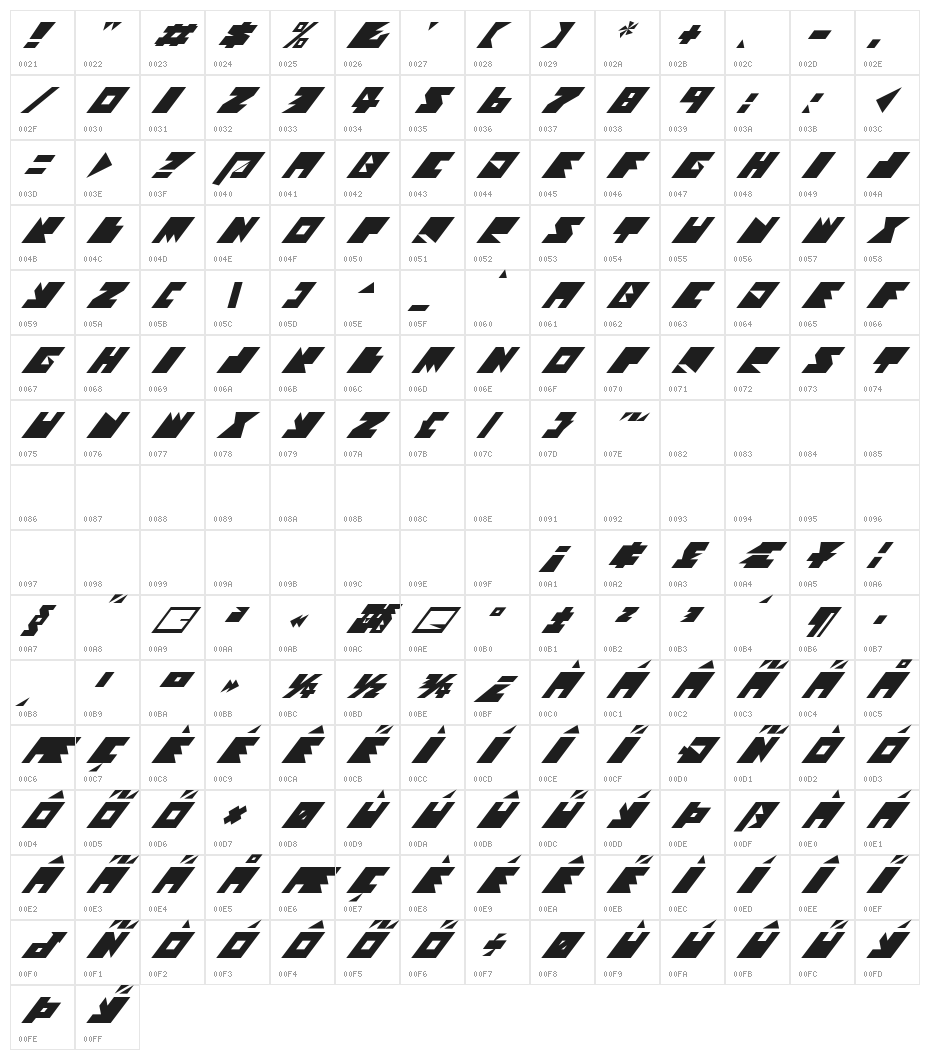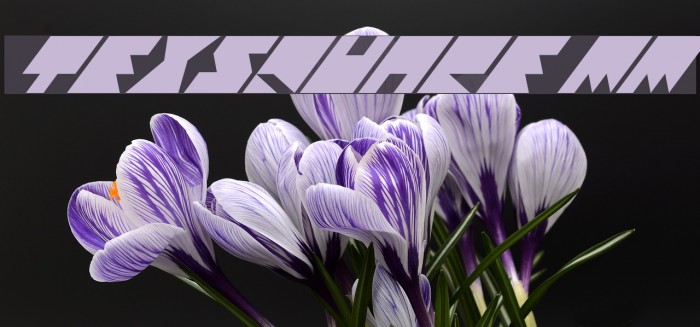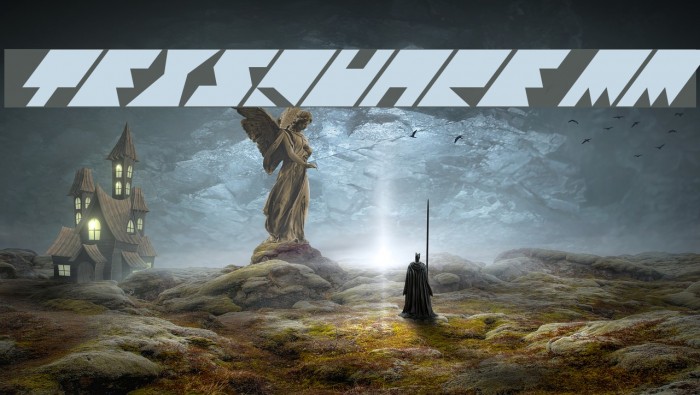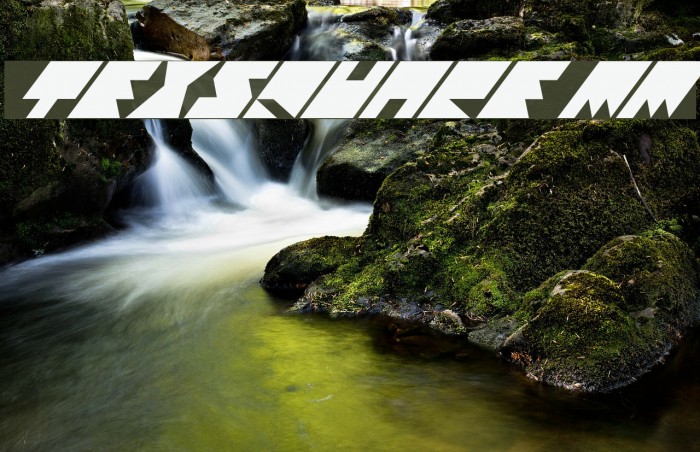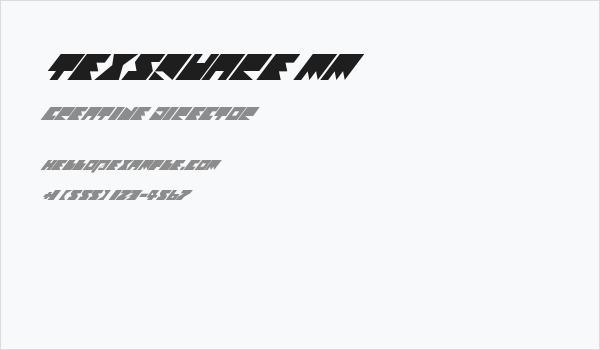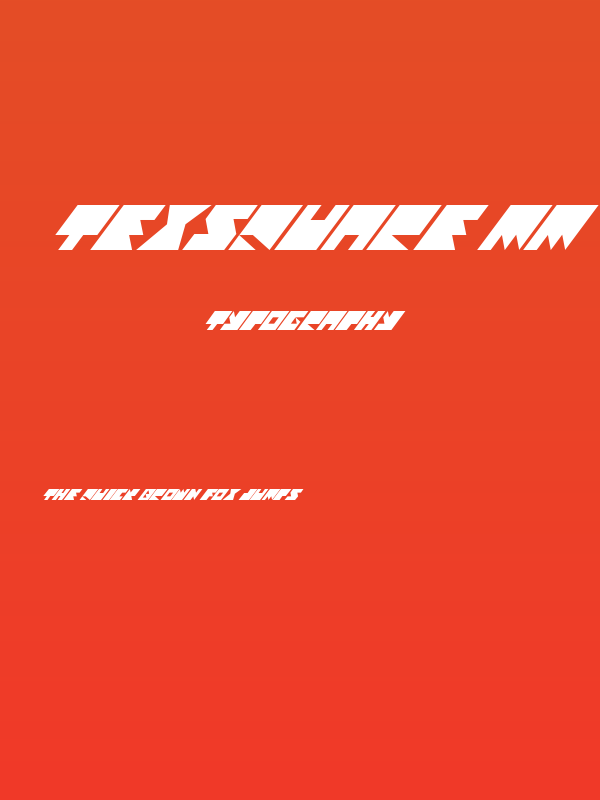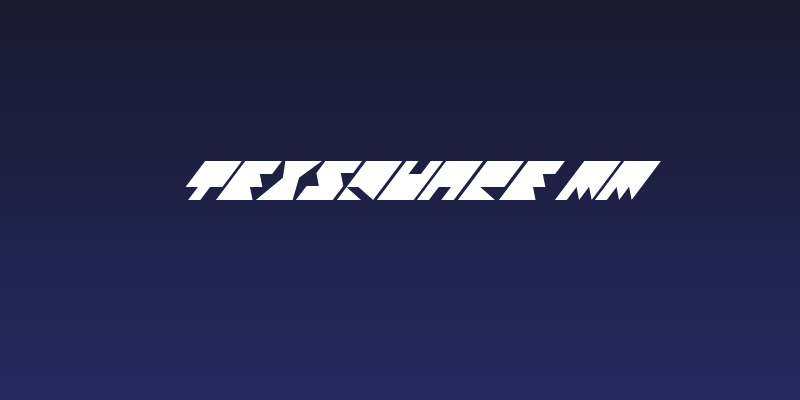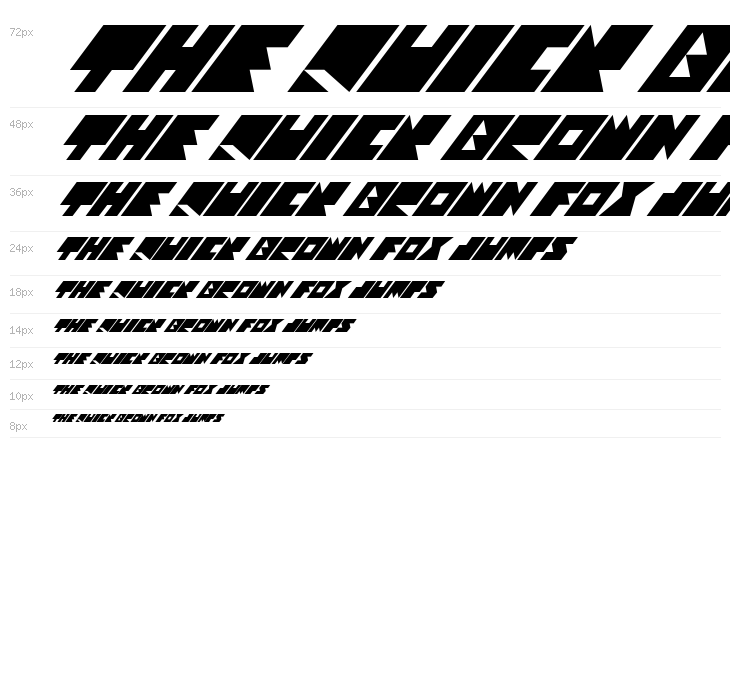
TexSquare MM Font
TexSquare MM Description
This font features a bold, angular design with sharp edges and a futuristic aesthetic. The characters are heavily stylized, with each letter and number incorporating geometric shapes and dynamic angles. The uppercase and lowercase letters maintain a consistent style, creating a cohesive look. The font's unique design makes it stand out, with a strong emphasis on diagonal lines and pointed tips. The special characters follow the same angular theme, adding to the overall boldness of the typeface.
| Proposed Projects | Ideal for sci-fi themed projects, video game titles, posters, and branding that requires a modern, edgy look. |